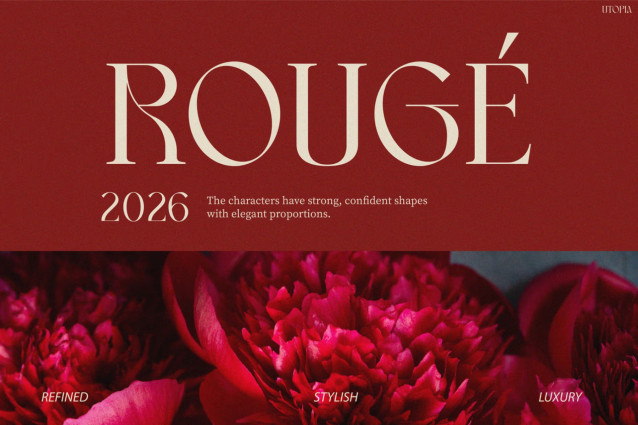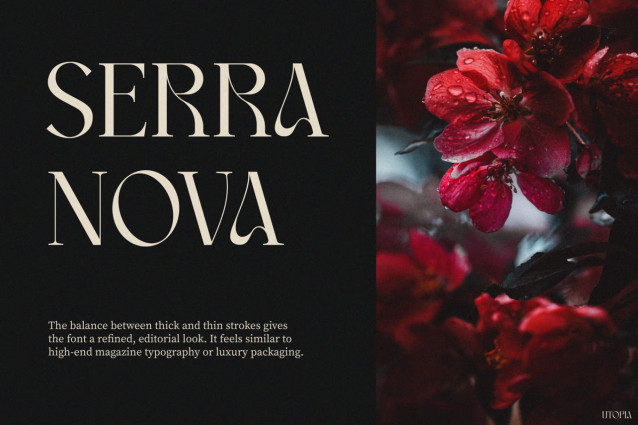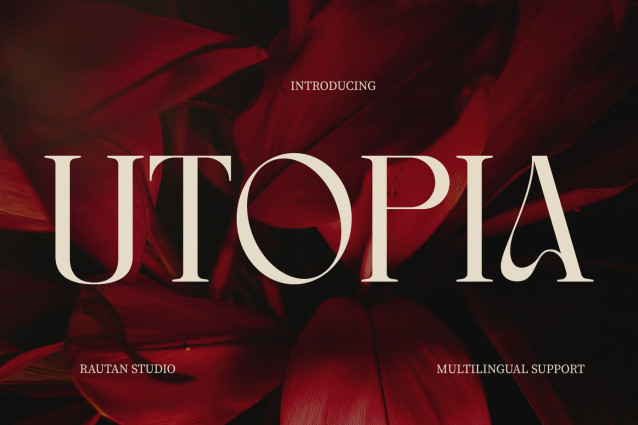
Utopia Font
Utopia Font is a refined vintage serif designed for bold elegance. Its graceful curves and strong strokes create stylish headlines, perfect for fashion branding, editorials, logos, and packaging.
Retro Font Utopia is a stylish retro-inspired serif display font designed to create powerful and elegant typography. First, the letterforms feature strong vertical structures that bring confidence and clarity to headlines. At the same time, the soft curves introduce warmth and artistic charm. Because of this balance, the font feels both bold and refined.